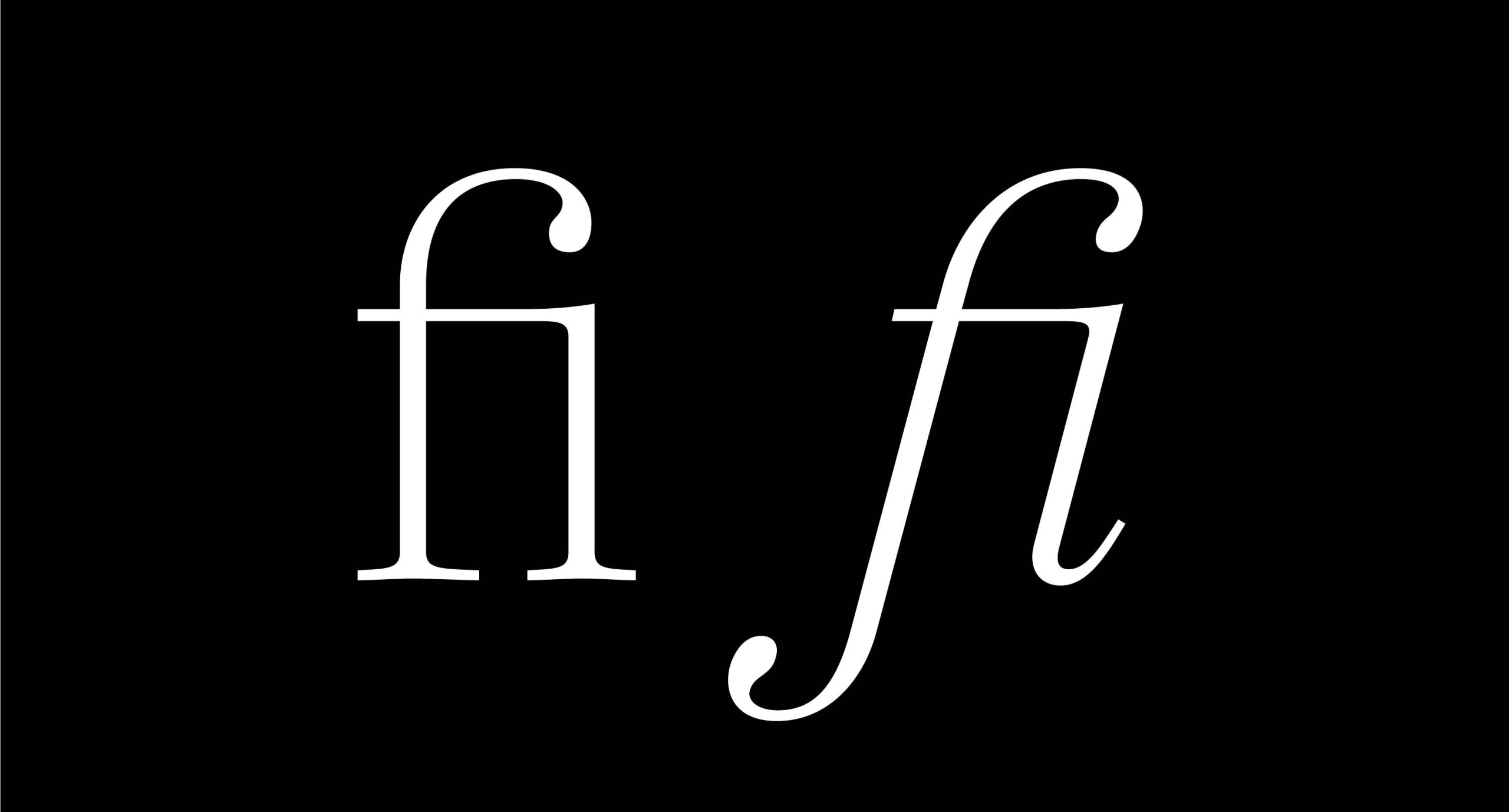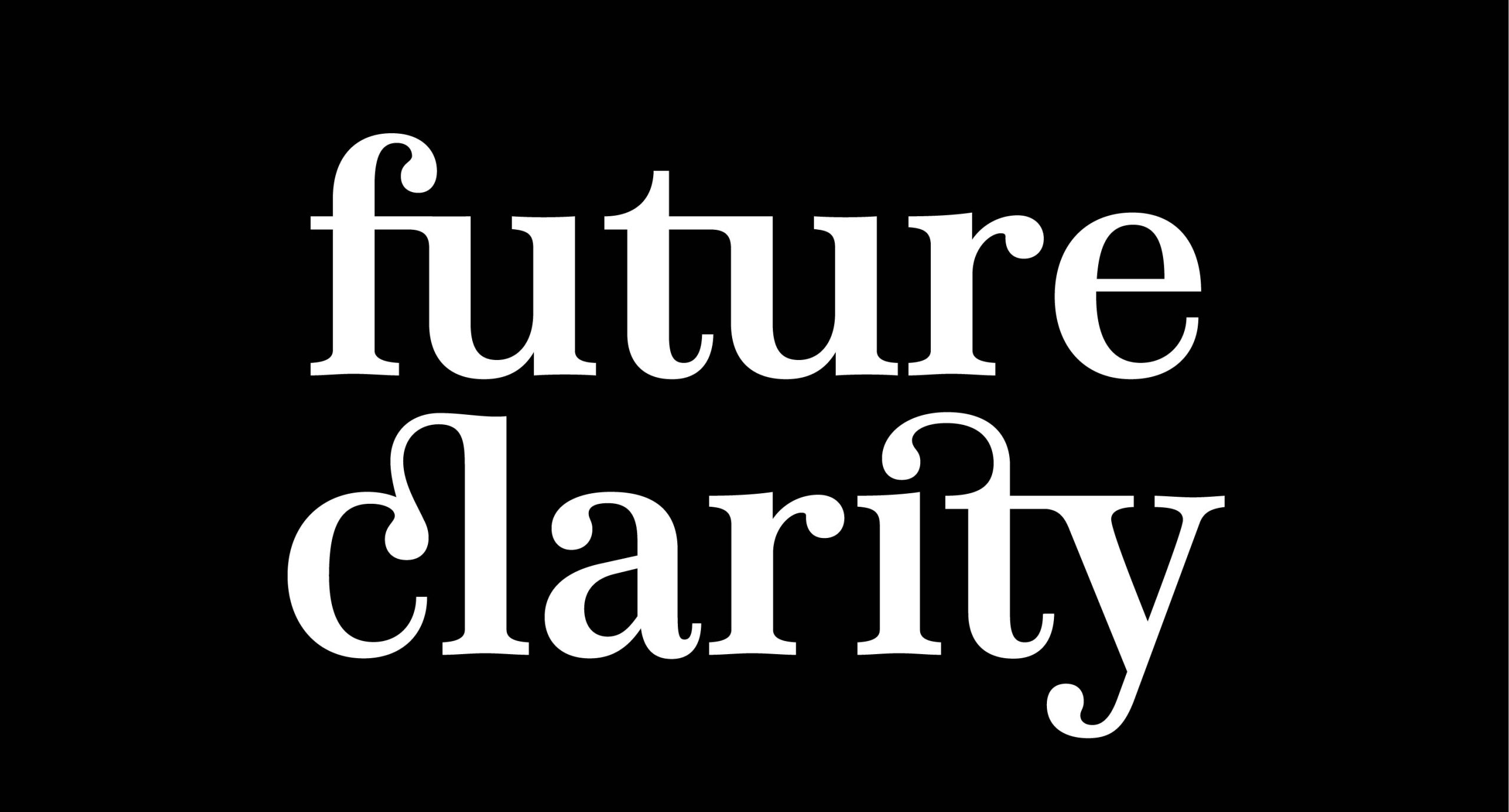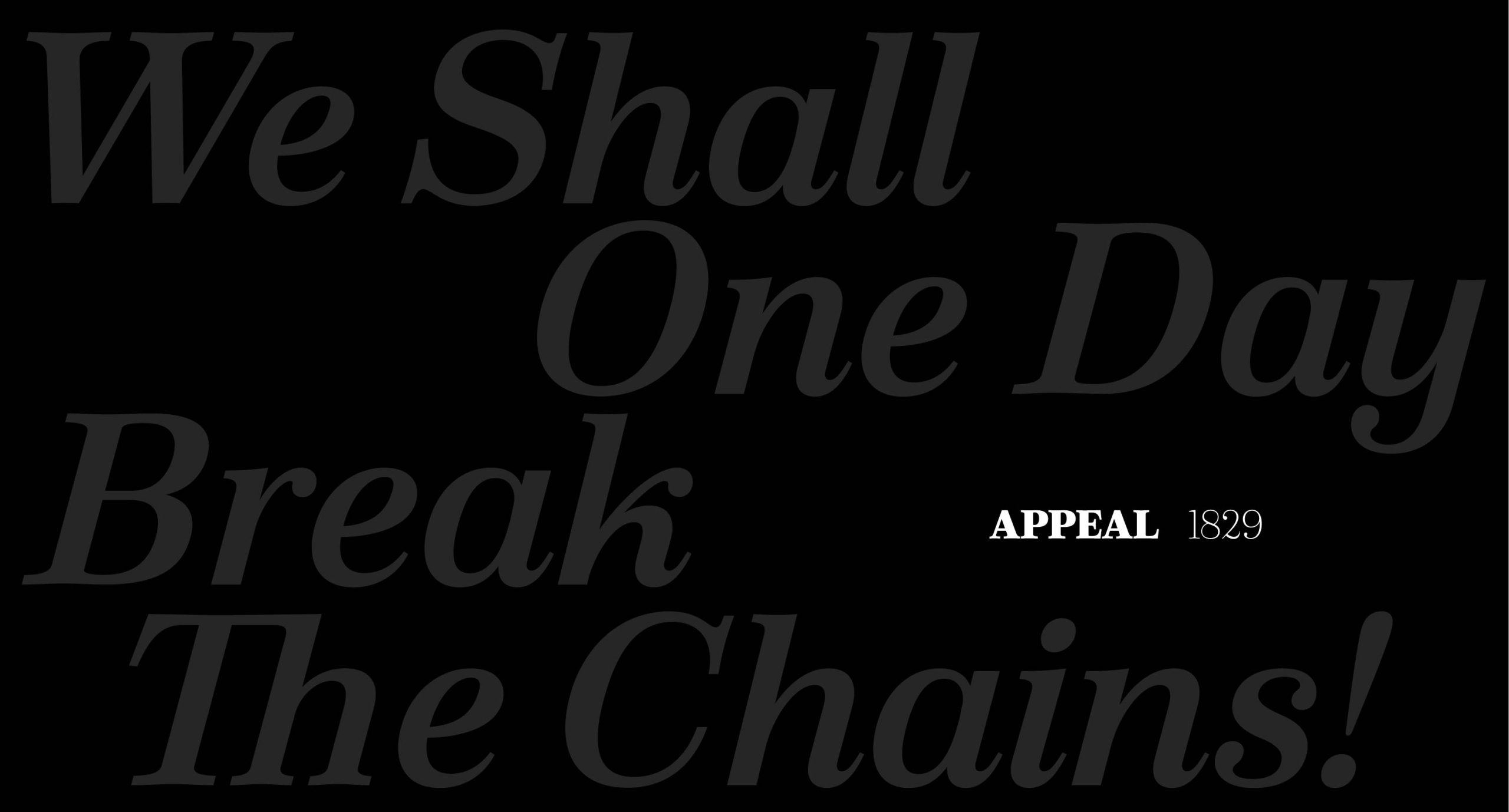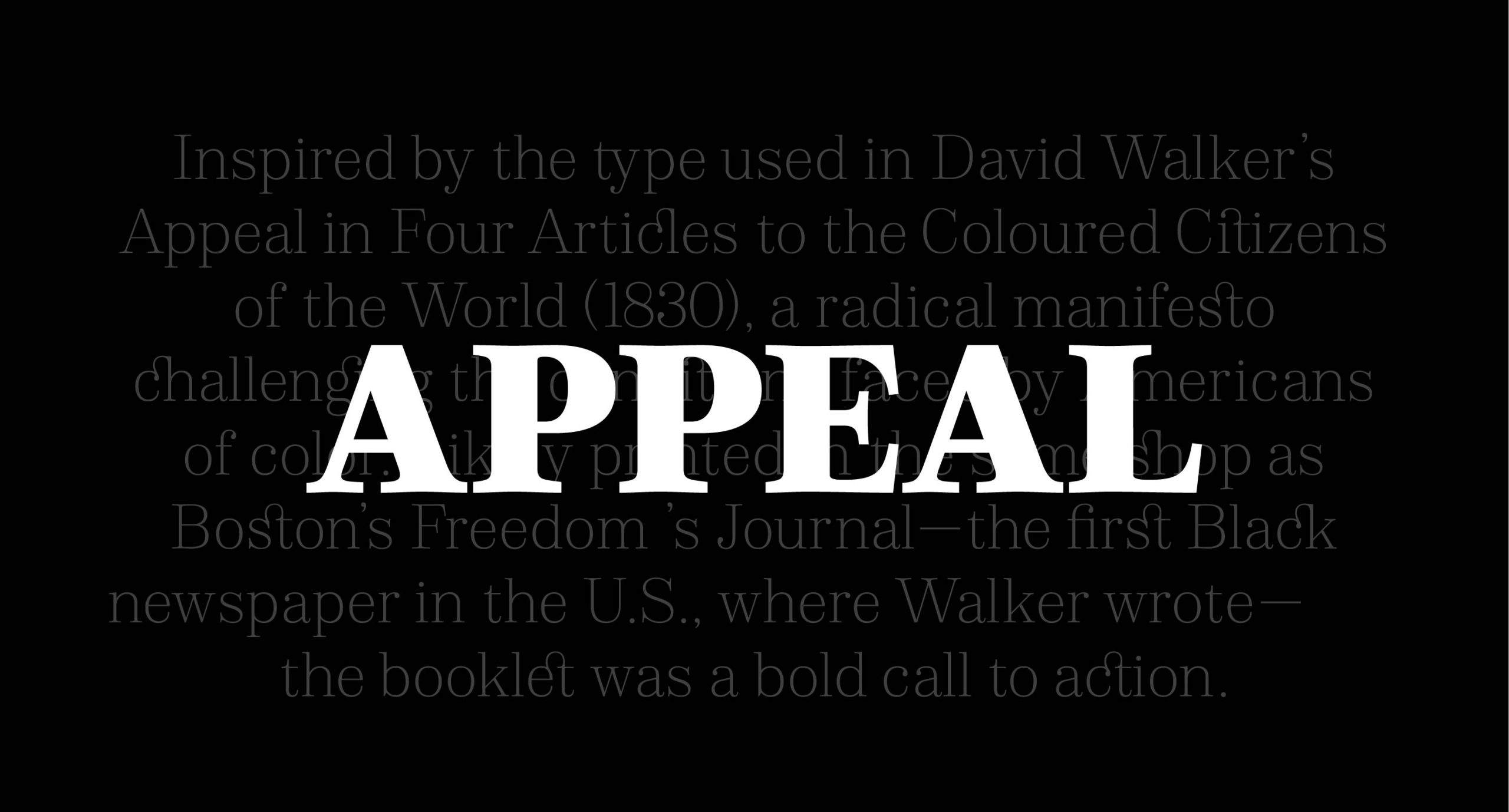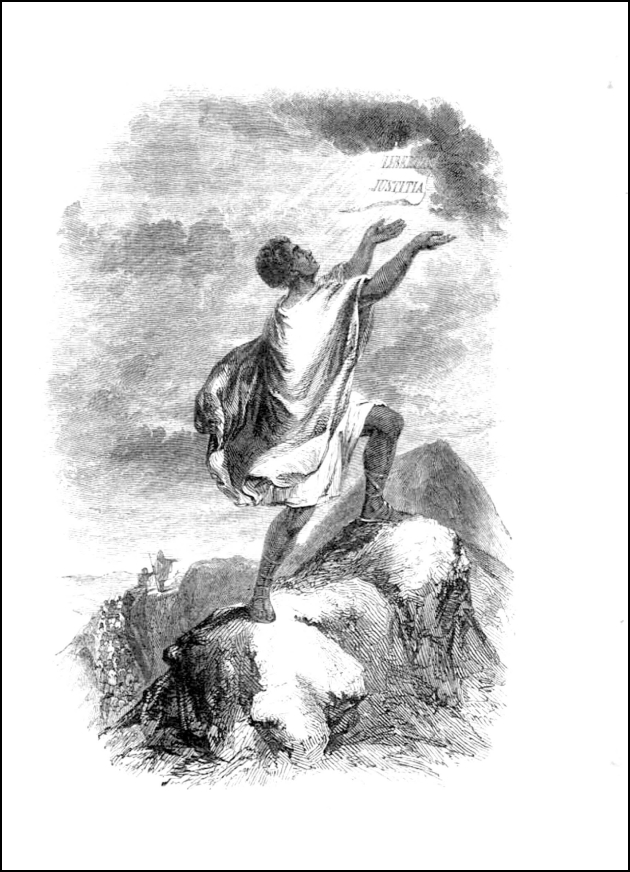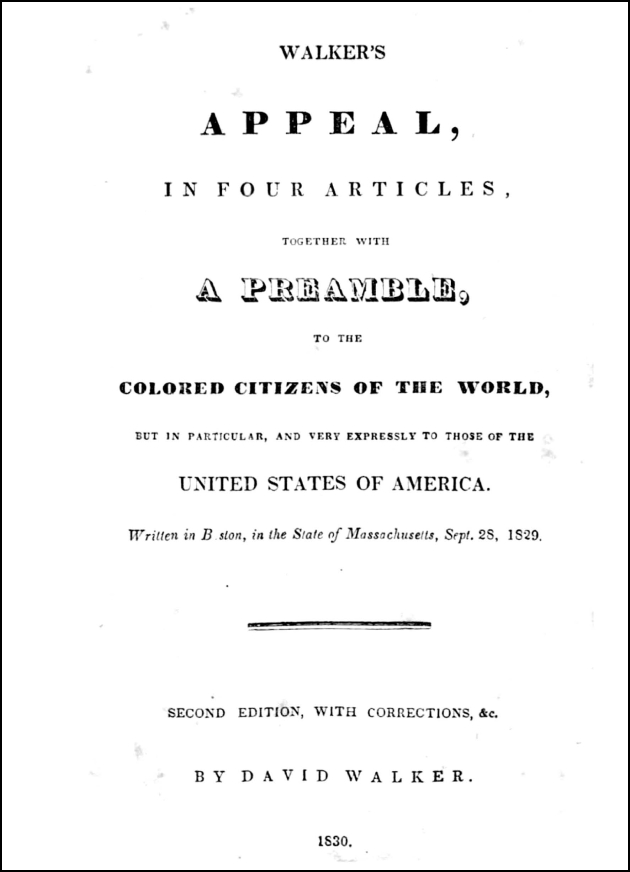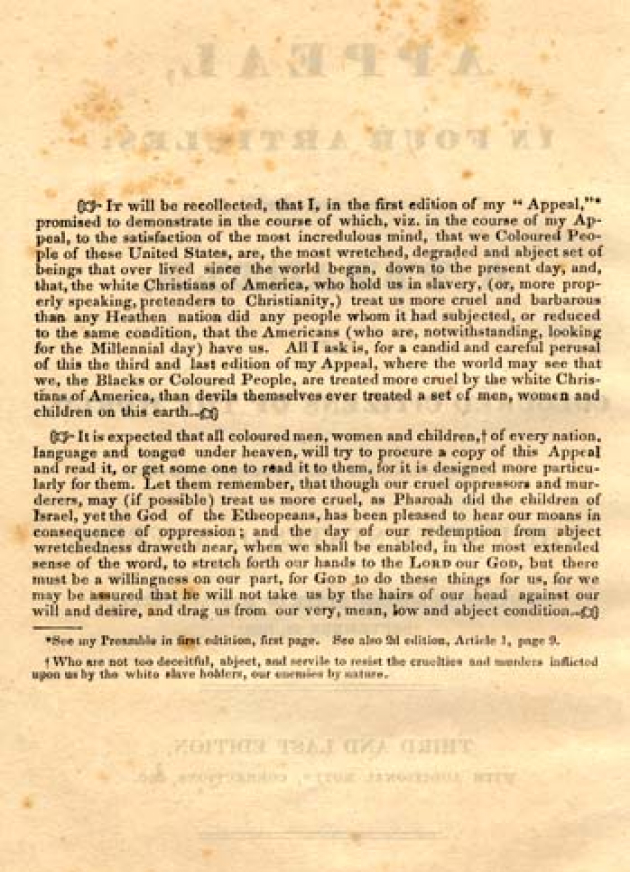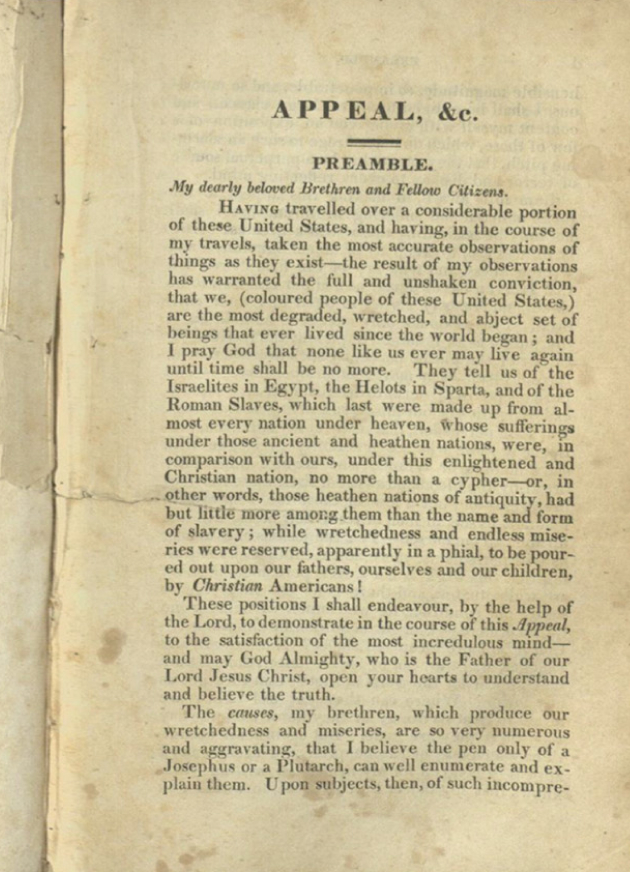
Appeal
David Jon Walker
Mares Rayeshtyan
Appeal is a text weight revival serif-based font based on the characters used in David Walker’s Appeal in Four Articles to the Coloured Citizens of the World. Published in 1830, this document was a manifesto to challenge the conditions of humanity that Americans of color faced during those times. This charged writing featured typesetting that was meant to excite and incite as it was read through the use of spacings and punctuations, a real feat at the time for its intended audience. The original publishing was produced at a finished size of 6×9 inches for portability. At 87 pages, the printing featured a 7pt font size. It is likely that the booklet was printed in the same shop as Boston’s Freedom’s Journal, the first Black newspaper in the U.S., where Walker was a writer.